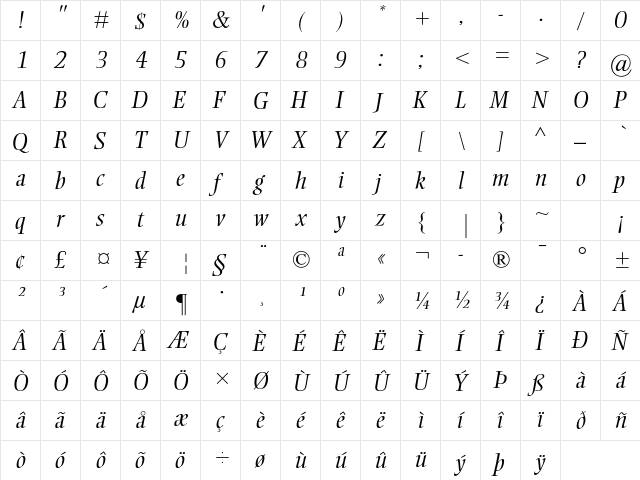
Ellington MT Std Light Italic Font Preview
Ellington MT Std Light Italic
Ellington MT Std Light Italic Font Details
| Style | Light Italic |
| Designer | Michael Harvey |
Design Context for Ellington MT Std Typeface
Ellington MT Std offers clean, dependable letterforms without strong stylistic allegiance, making it a practical choice for designers who need flexibility. Its italic angle brings a sense of urgency and motion to the letterforms. Its slender proportions lend an understated elegance to any composition.
Pro Tip: Use Ellington MT Std for emphasis, pull quotes, and subheadings where its slanted energy can add rhythm to the layout.